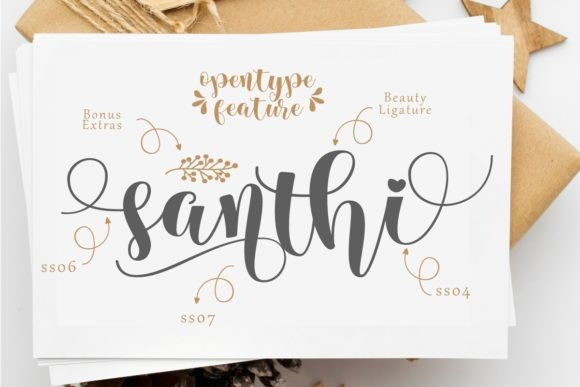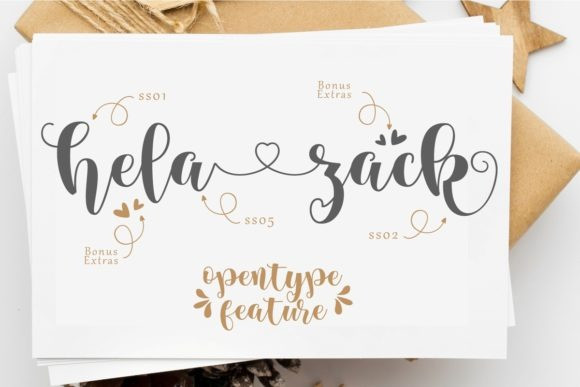
Manilla Font
Manilla Script Font is a cute and fun script font with a strikingly authentic feel font is our new item that suitable for your Posters.
Great for Logo, Poster, Sticker, Jersey, Invitation Card, Brochure, etc.